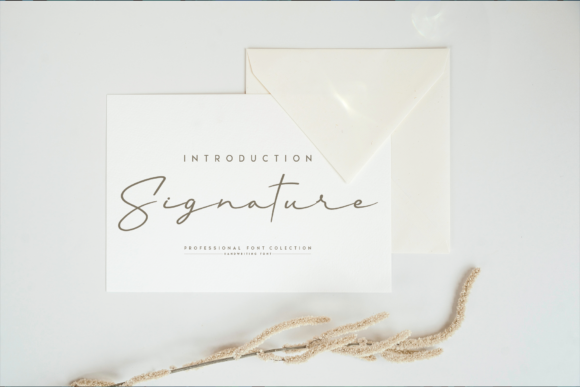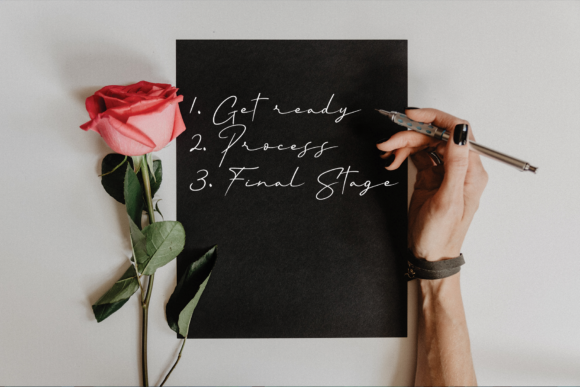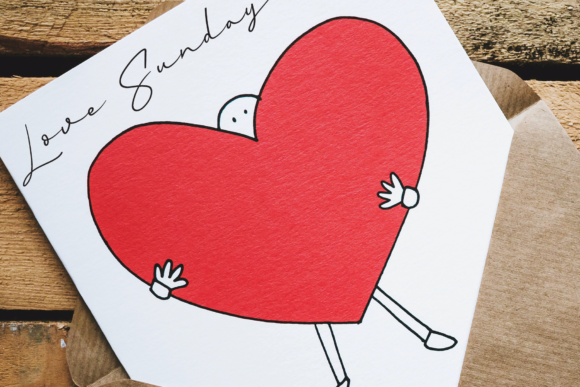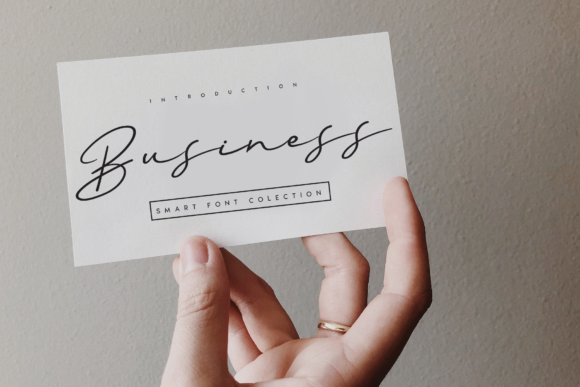
The Elegance of Antonim: A Handwritten Font that Brings Designs to Life
I’ll never forget the moment I stumbled upon the Antonim font. I was working on a project for a client who wanted a elegant and sophisticated look, but I was struggling to find the right font to match their vision. That’s when I discovered Antonim, a delicate, elegant, and flowing handwritten font that has become a staple in my design toolkit.
A Personal Review: What I Love (and What to Watch Out For)
- 💫 Beautiful and well-balanced characters that add a touch of elegance to any design
- 🎨 Versatile and adaptable to a wide range of design styles and projects
- 📝 Excellent for body text, headings, and titles
- 👍 Highly legible, even at smaller font sizes
- ⚠️ Some characters may appear too delicate or fragile for very bold or bright designs
- 🤔 Limited availability of certain special characters or glyphs
Exploring Alternatives: Similar Fonts to Antonim
If you love Antonim, you might also enjoy these similar fonts:
- Lato: A modern sans-serif font with a similar elegance and sophistication
- Merriweather: A classic serif font with a similar classic and refined feel
- Pacifico: A beautiful, elegant script font with a similar flowing and artistic vibe
- Playfair Display: An elegant and luxurious display font with a similar refined and sophisticated feel
The Story Behind Antonim: Designer Inspiration
While the true story behind Antonim’s creation remains a mystery, it’s easy to imagine a designer pouring their heart and soul into crafting such a beautiful and elegant font. Perhaps they were inspired by the flowing lines and curves of handwritten calligraphy, or the classic typography of vintage posters.
Q: What is the best way to use Antonim in a design project?
A: Antonim is versatile and can be used for body text, headings, and titles. Experiment with different font sizes, colors, and styles to find the perfect look.
Q: Is Antonim available in different font weights or styles?
A: While Antonim is primarily available as a single font weight, it can be paired with other fonts or used in combination with bold or italic styles to create visual interest.
Q: Can I use Antonim on mobile devices or for web design?
A: Yes, Antonim can be used on mobile devices and for web design. Its clear and legible design makes it suitable for digital use.